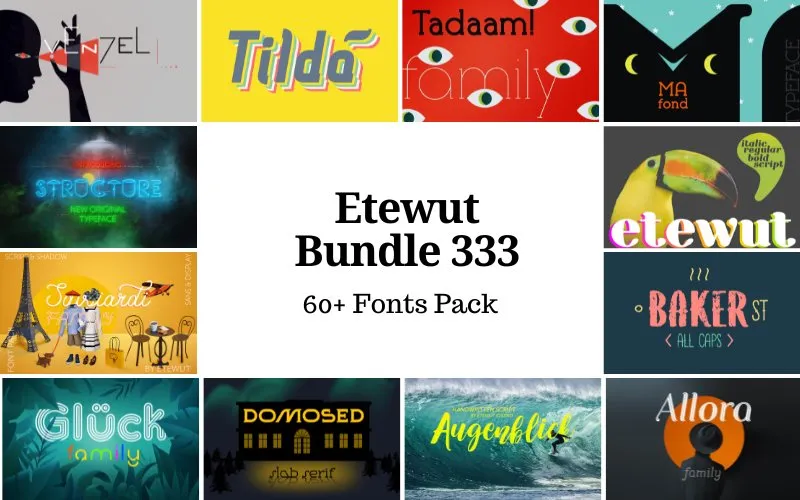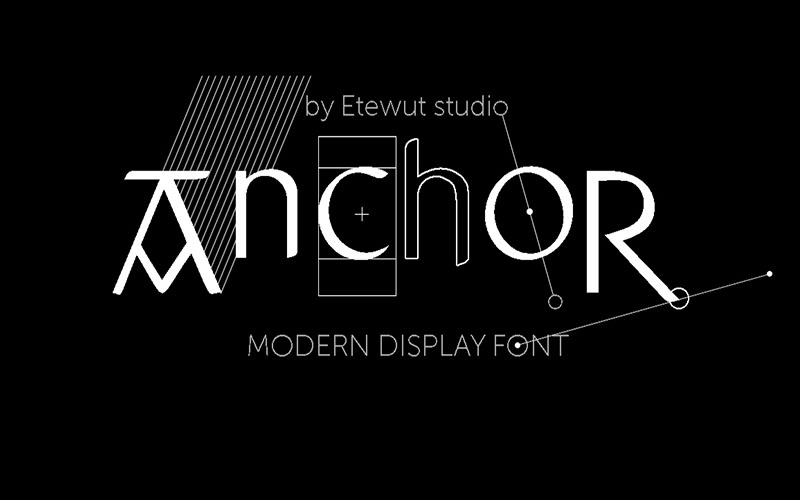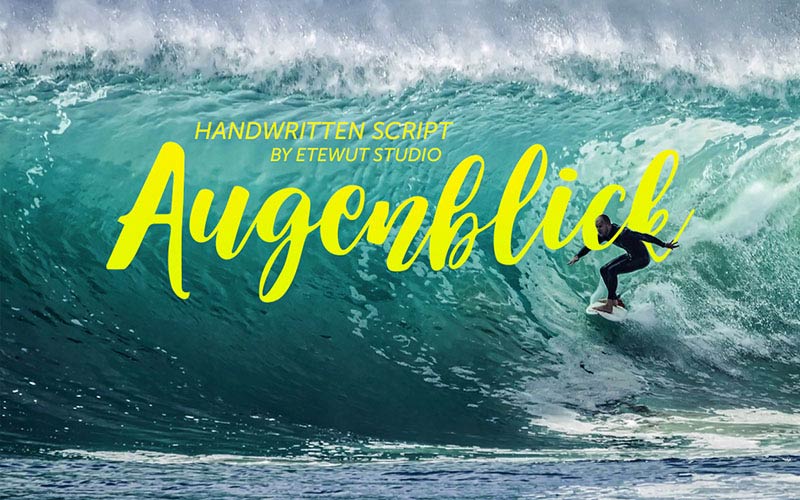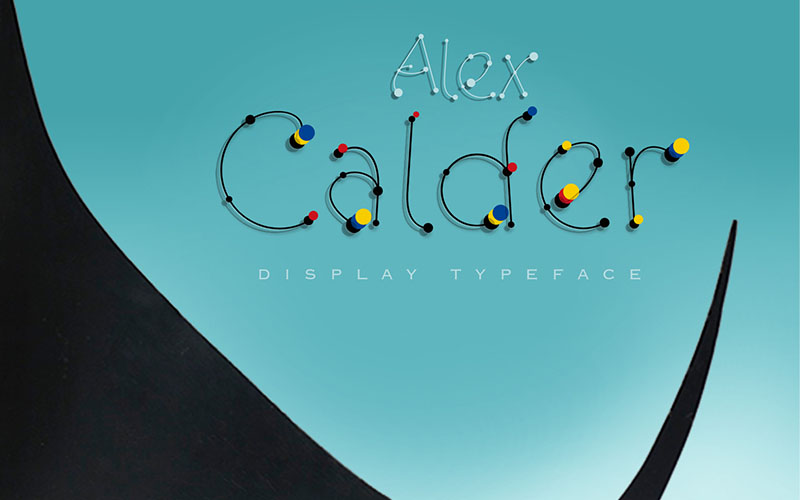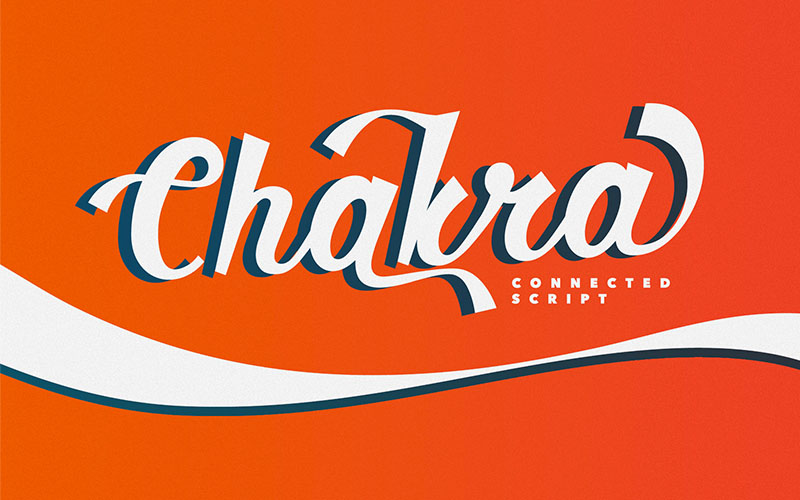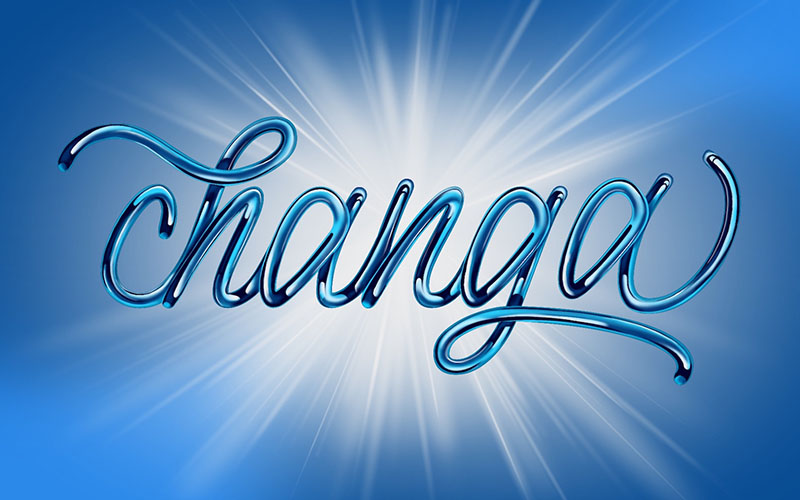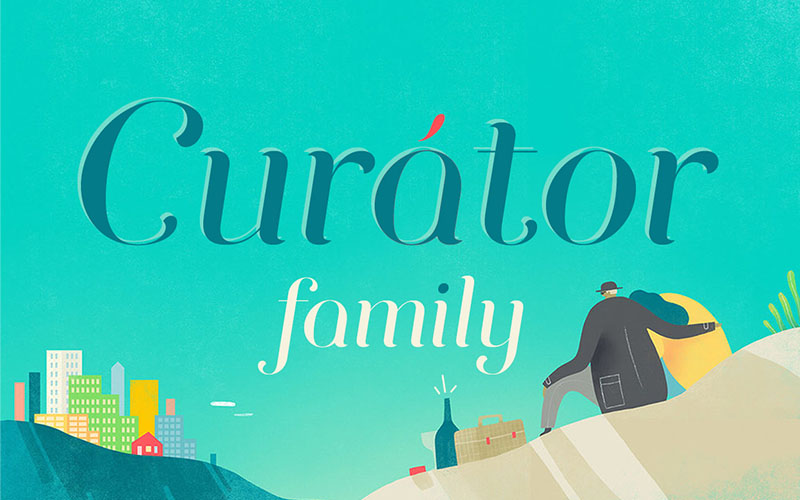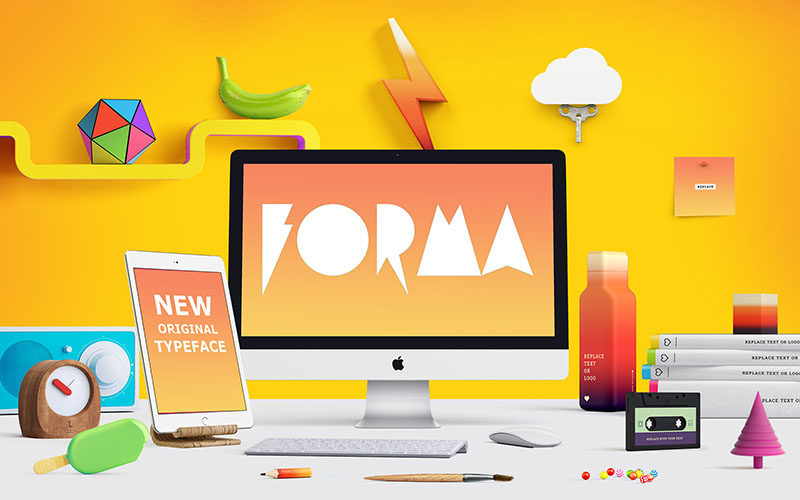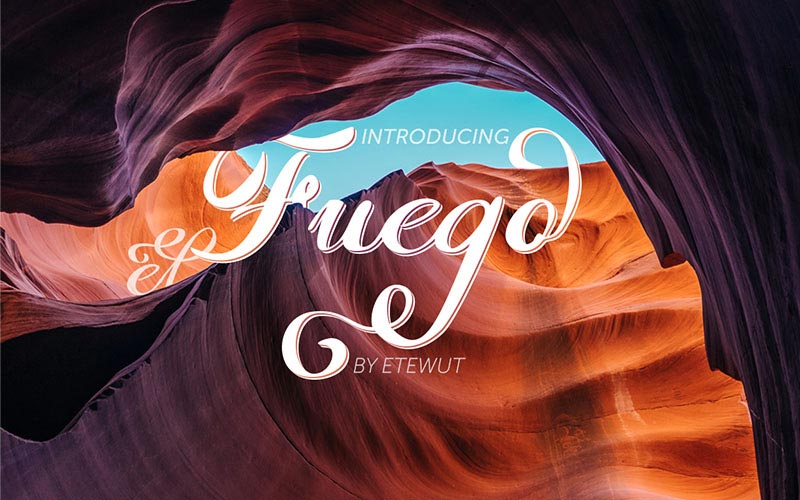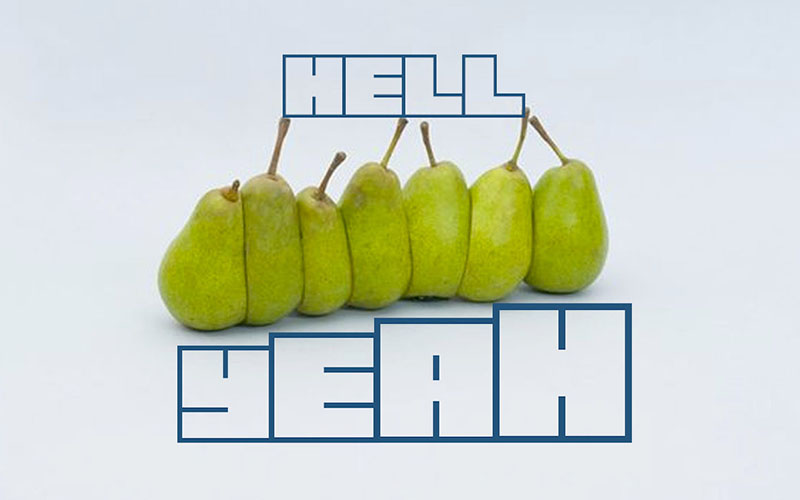
Elevate your projects and create captivating designs with the comprehensive selection of –Â
333 Fonts From 60+ Font Families Pack
These font families bring their unique style, providing bold, italic, and script options with alternates, swashes, and swooshes accessible through the glyph panel.
These fonts are multi-language and cater to a global audience, ensuring that your designs speak to everyone.
Whether you’re working on branding, packaging, digital media, or print, this bundle provides the creative freedom to experiment and impress.
Font Families Included In The Pack:
Script Font Family
Sans Font Family
Slab-serif Font Family
Blackletter Font Family
Stencil Font Family
Hand Brushed Font Family
Display Font Family
Fonts Included In The Pack:
Hooley Font
Absinthe Font
Augenblick Font
Pedrera Font
Savoiardi Font
Structure Font
Fuego Font
Oldie Font
Anchor Font
Venzel Font
Gluck Font
Wirklich Font
Curator Font
Forma Font
Swan Font
Pluma Font
Signal Font
Batlio Font
Press Font
Cama Font
Laser Dots Font
Hellyeah Font
Moloko Font
Click Font
Splash Font
Liberal Font
Pronto Font
Allora Font
Tadaam Font
Mafond Font
Kaixo Font
Hvala Font
Brutto Font
Hoochie Font
Salud Font
Danken Font
Tilda Font
Jeunes Font
Abudabi Font
Trinidad Font
Lunar Font
Ma Tilda Font
Warka Font
Sicilia Font
Solomonk Font
Rajomon Font
Lento Font
Pistoletto Font
Calder Font
New Lobster Font
Etewut Serif Font
Etewut Sans Font
Vulgary Font
Geraldica Font
Baker ST Font
Chakra Font
Mixteria Font
Riley Wow Font
Spiro Font
Domosed Slab Font
Domosed Sans Font
Changa Font
- 333 fonts from 62 font families
- Multi language support with foreign characters
- Script fonts have alternates, swashes and swooshes that may be chosen from the glyph panel
- Most families include italic and bold styles
Here's A Preview Of The 60+ Fonts Included In The Pack:
Anchor Font
Augenblick Font
Calder Font
Chakra Font
Changa Font
Curator Font
Forma Font
Fuego Font
Hellyeah Font
Lunar Font
Oldie Font
Piteoletto Font
Structure Font
Tilda Font